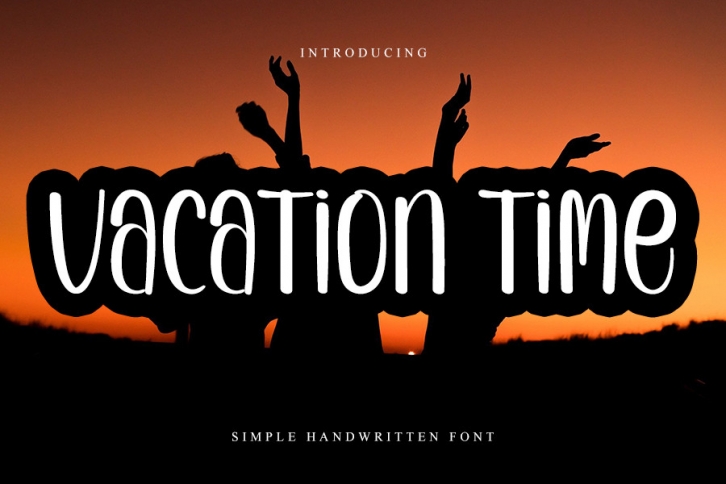
Vacation Time is a chic handwritten font with an impeccable form, inspired by a timeless calligraphy. Balanced and varied, this font was designed to enhance the beauty of your projects.